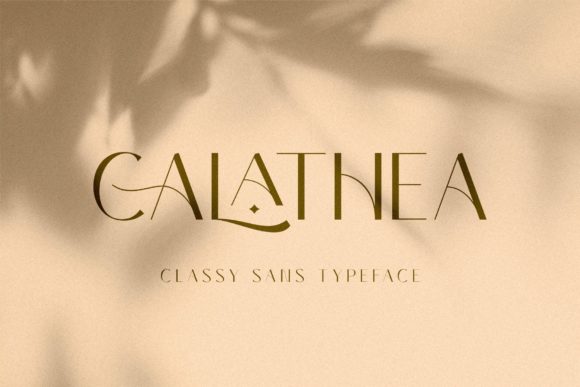
The Elegance of Calathea Font: A Designer’s Delight
I’ll never forget the time I was working on a luxury branding project for a high-end jewelry client. I had spent hours perfecting the logo design, but something was missing. The font I had chosen just wasn’t elevating the design to the level of sophistication I knew the brand deserved. That’s when I stumbled upon Calathea Font, a classy and elegant sans serif font that completely transformed my design. In this article, I’ll share my experience with Calathea, its features, and how to make the most of it in your design projects.
An Honest Review of Calathea Font
What I Love About Calathea ✨
- ✅ Elegant and sophisticated: Calathea’s clean lines and subtle curves make it perfect for luxury brands, high-end products, or any design that requires a touch of class.
- ✅ Easy to read: Despite its elegant appearance, Calathea remains highly legible, even at smaller font sizes.
- ⚠️ Limited use in casual designs: Calathea’s luxurious feel might not be the best fit for more playful or casual projects, such as children’s books or informal event branding.
- ⚠️ Requires attention to spacing: To maximize its elegance, Calathea needs careful attention to letter spacing and line height, especially in body text.
- Experiment with OpenType features like ligatures and stylistic alternates to add a unique touch to your text.
The Designer Inspiration Behind Calathea
Calathea Font was inspired by the natural elegance of the Calathea plant, known for its beautiful, intricate patterns. The font’s designer aimed to capture the plant’s sophistication and versatility, creating a typeface that is both luxurious and highly legible.
| What makes Calathea Font unique? | Calathea Font stands out for its elegant and sophisticated design, making it perfect for luxury brands and high-end designs. |
| Is Calathea suitable for body text? | While Calathea is elegant and legible, it works best in headlines and short paragraphs. For longer body text, consider a more traditional serif font. |
| Does Calathea support OpenType features? | Yes, Calathea supports OpenType features such as ligatures and stylistic alternates, which can enhance your typography. |